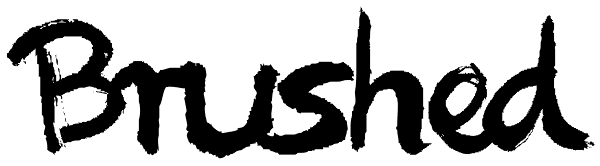
Brushed
Let this free-flowing brush script add a little hand painted goodness to your works. Cheaper than a bucket of paint, use Brushed to add brush painted letters to your works or manipulate the many glyphs in this font using image editing software to...